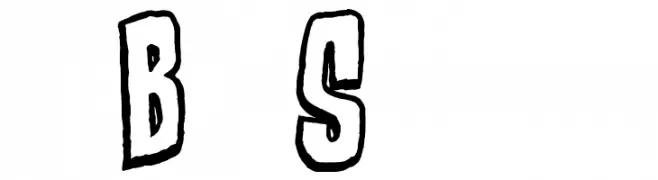
A bold, tartan-patterned font with a strong Scottish influence.
A bold, distressed font with a rugged, hand-crafted look.
A bold, elongated font with consistent stroke width and rounded edges.
A bold, comic-style font with irregular, hand-drawn strokes.
A bold, playful font with a cartoonish, three-dimensional style.
A bold, playful font with exaggerated curves and angles, perfect for creative designs.
A bold, distressed font with a rugged, textured appearance.
An ornate, lace-patterned font with a vintage and elegant style.
A dramatic, expressive font with sharp, angular strokes and dynamic flow.
A playful, hand-drawn sketch-style font with a textured, artistic look.
A bold, hand-drawn font with thick, uneven strokes and a playful, artistic style.
A bold, three-dimensional serif font with pronounced shadows.
A vintage, decorative font with a distressed, hand-drawn appearance.
A bold, distressed font with a vintage, rugged aesthetic.
A bold, dripping font with a playful, eerie vibe perfect for spooky themes.
A distressed, grunge-style font with bold, textured characters.
A bold, decorative font with striped patterns and sharp serifs.
A bold, distressed decorative font with a hand-drawn, edgy style.
A bold, geometric font with a futuristic and industrial aesthetic.
A bold, decorative font with a vintage, Old West aesthetic.
A playful, handwritten font with bold, dynamic characters and a whimsical touch.
A bold, geometric font with a dotted interior and thick outlines.
A bold, geometric font with a three-dimensional effect and strong, angular characters.
A bold, playful font with rounded, bubbly characters and a hand-drawn feel.
A bold, geometric font with a distressed, vintage texture.
A whimsical, bold font with playful, uneven letterforms enclosed in tilted squares.
A bold, textured font with a vintage, distressed style.
A bold, manga-inspired font with dynamic brush stroke effects.
A playful, handwritten font with bold, rounded strokes and a lively, informal style.
A bold, distressed font with a grunge texture and condensed width.
A bold, distressed font with a vintage, rugged style.
A bold, futuristic font with a three-dimensional effect and strong presence.
A bold, decorative font with a strong, geometric style and thick outlines.
A bold, hand-drawn font with a rough, textured appearance.
A bold, textured Blackletter-style font with a modern halftone pattern.